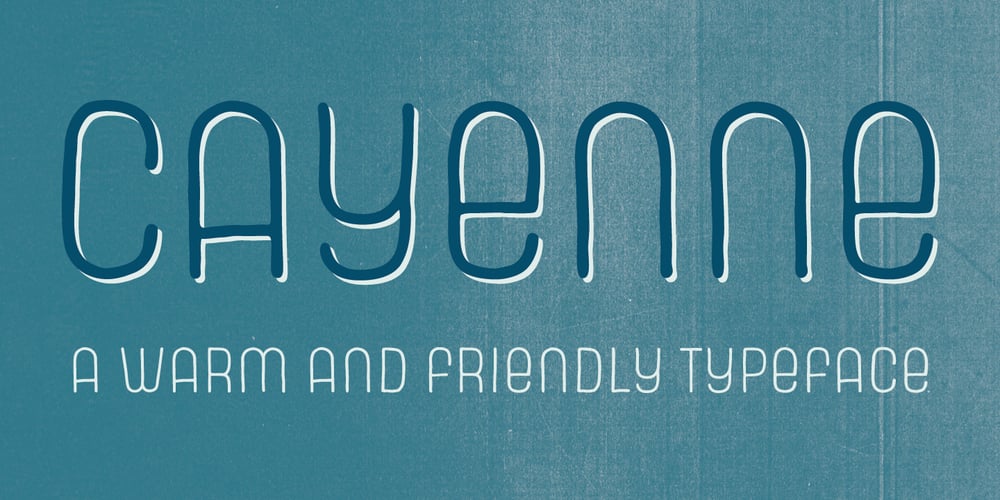
Cayenne Font Family was designed by published by Luxus. Cayenne contains 7 styles and family package options. Cayenne is an all-caps hand-lettered font in three weights, two dotted versions and an outline and an inline font.